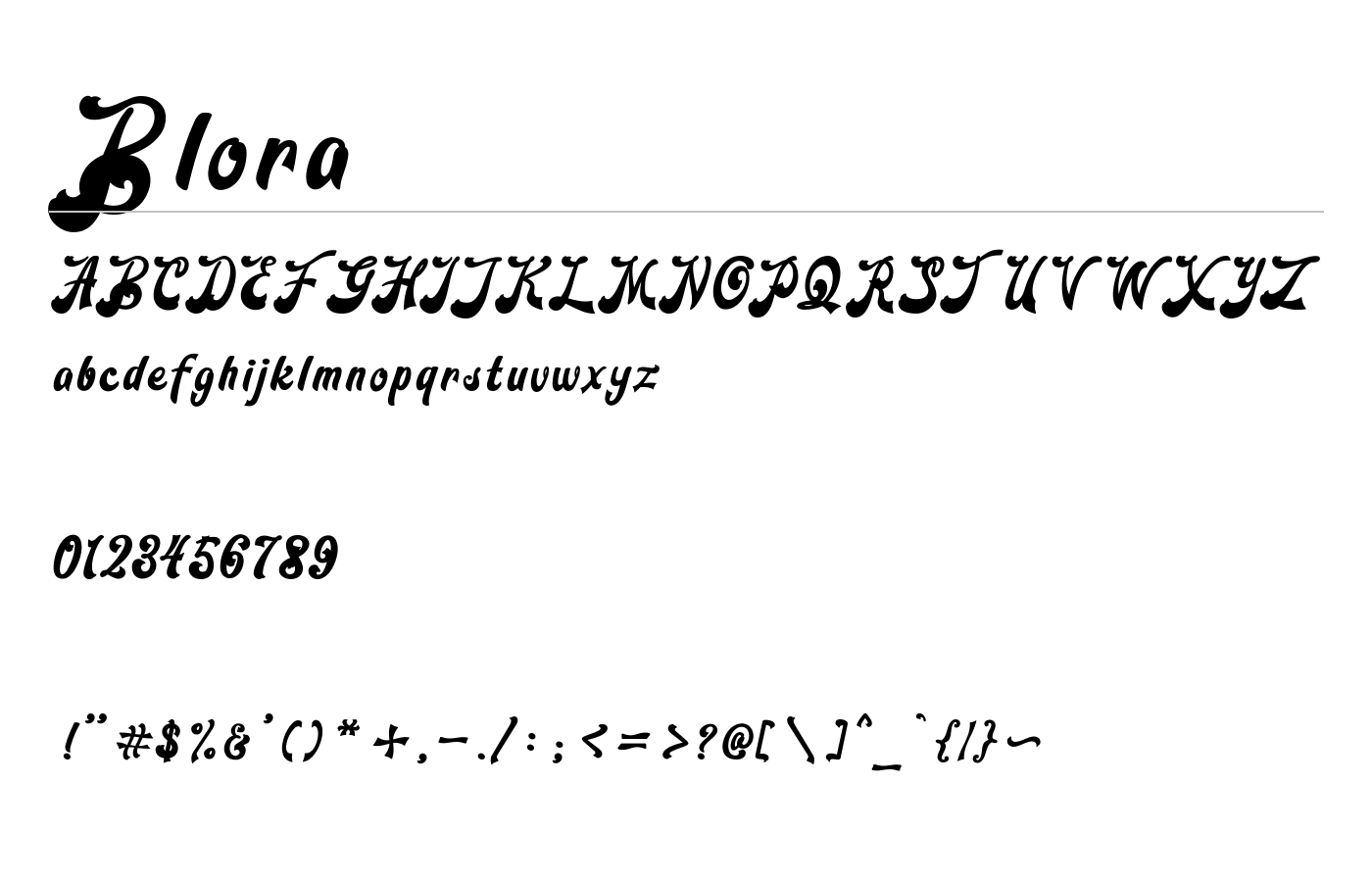
Blora is a bold and expressive script font with a strong vintage vibe, featuring thick, rounded strokes and lively, ornamental curves that give it a playful yet classic feel. Its distinctive uppercase letters with decorative flourishes and a smooth, flowing lowercase make it perfect for eye-catching logos, packaging, and headlines that seek to convey personality and charm. This font works best where a creative, retro-inspired touch is desired, blending elegance with a touch of whimsy.
About Blora Font